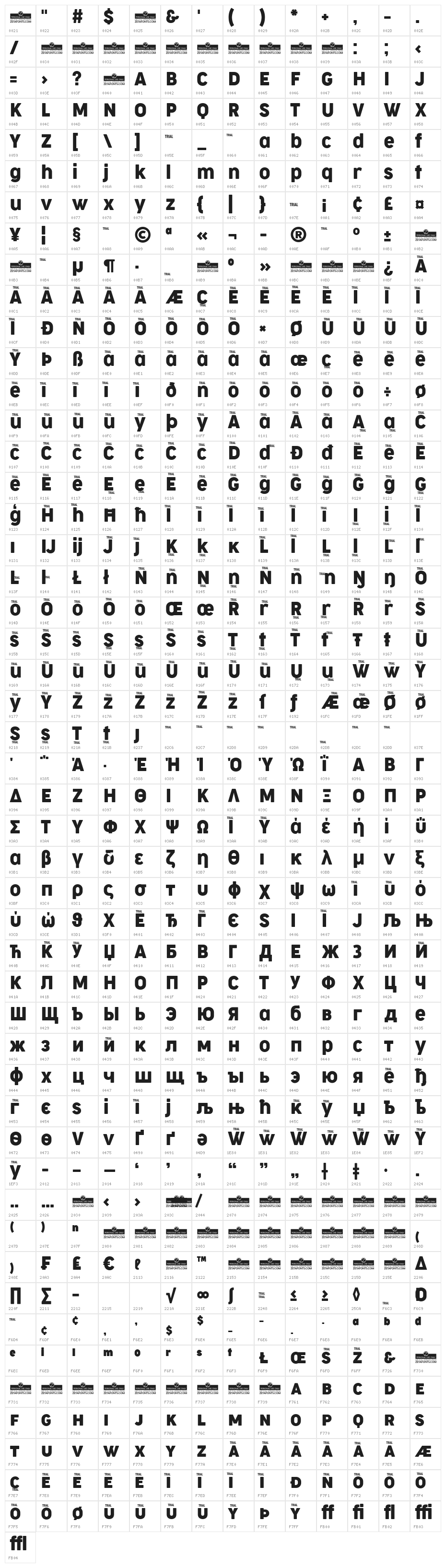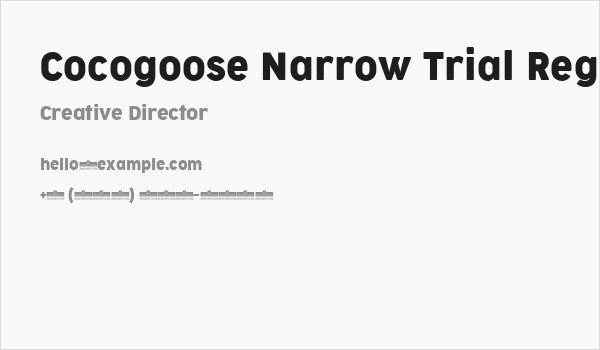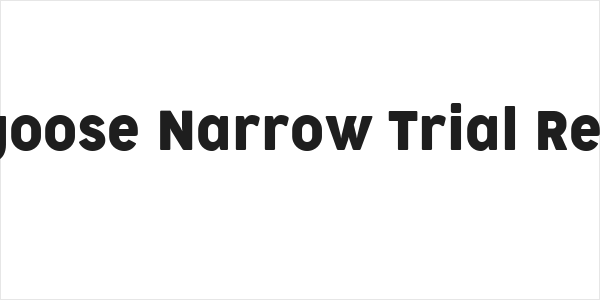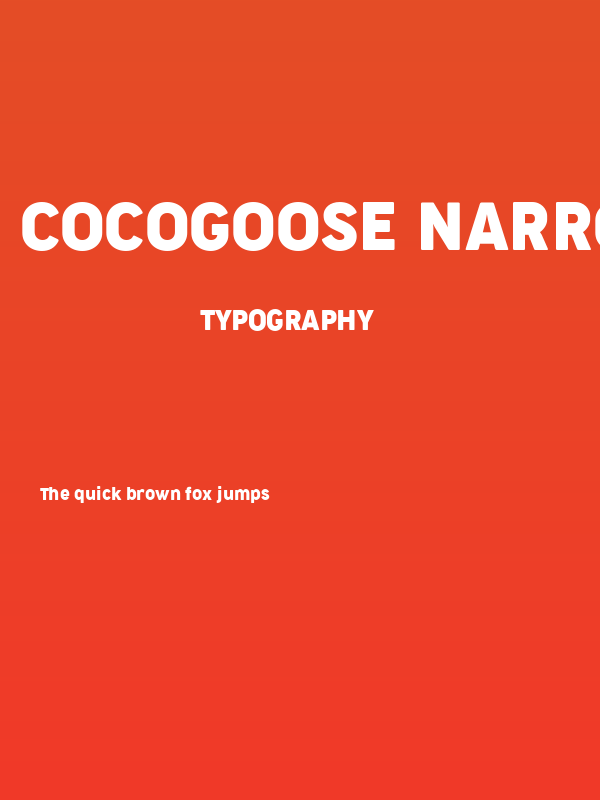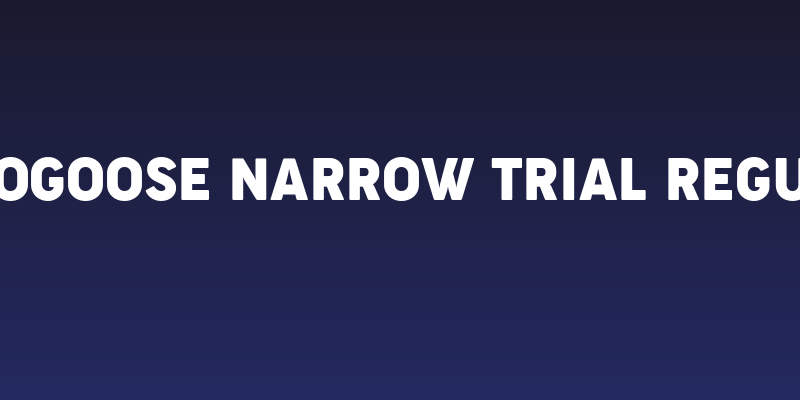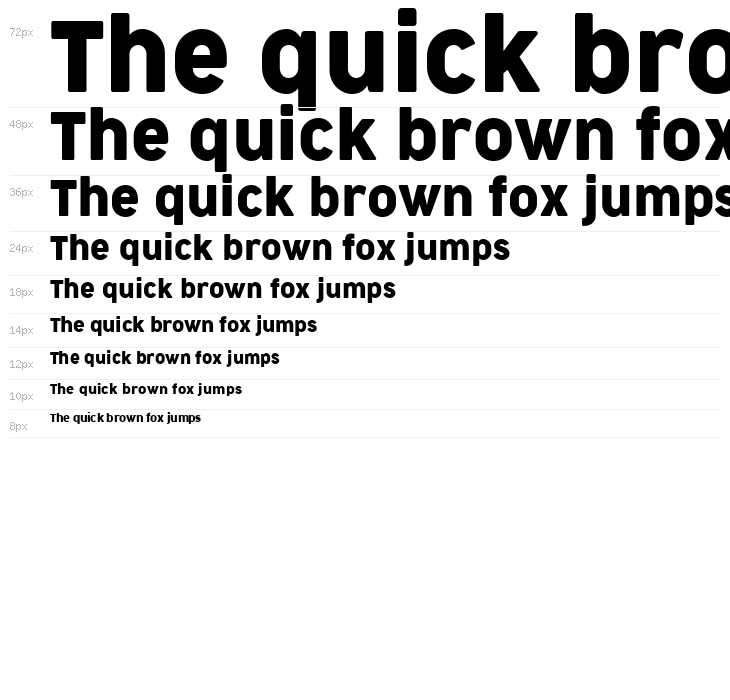
Cocogoose Narrow Trial Regular Font
Cocogoose Narrow Trial Regular Description
This typeface features a bold and modern design with clean, geometric lines. The uppercase and lowercase letters are well-proportioned, maintaining a consistent stroke width throughout. The characters exhibit a slightly condensed appearance, making them suitable for space-efficient designs. The font includes a full set of numerals and a variety of special characters, enhancing its versatility. Its strong presence and clarity make it ideal for impactful visual communication.
| Proposed Projects | Ideal for branding, advertising, headlines, and digital media where a strong, modern aesthetic is desired. |